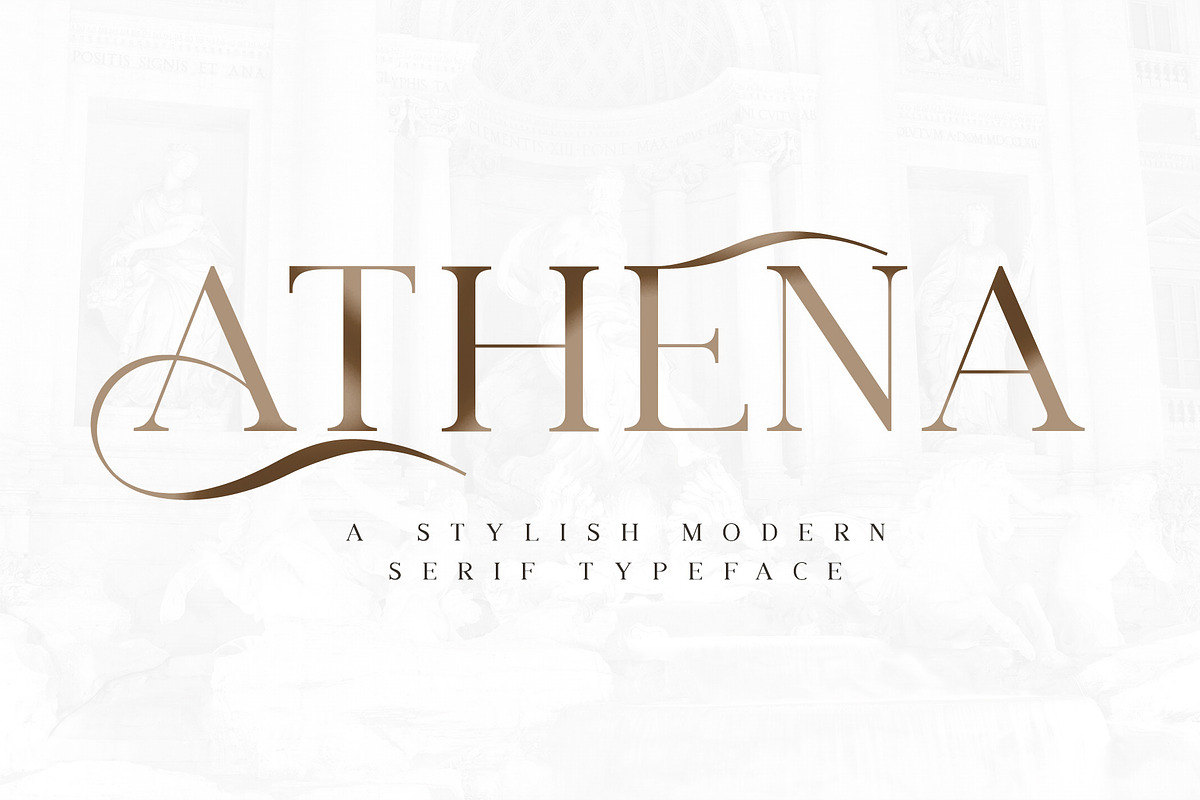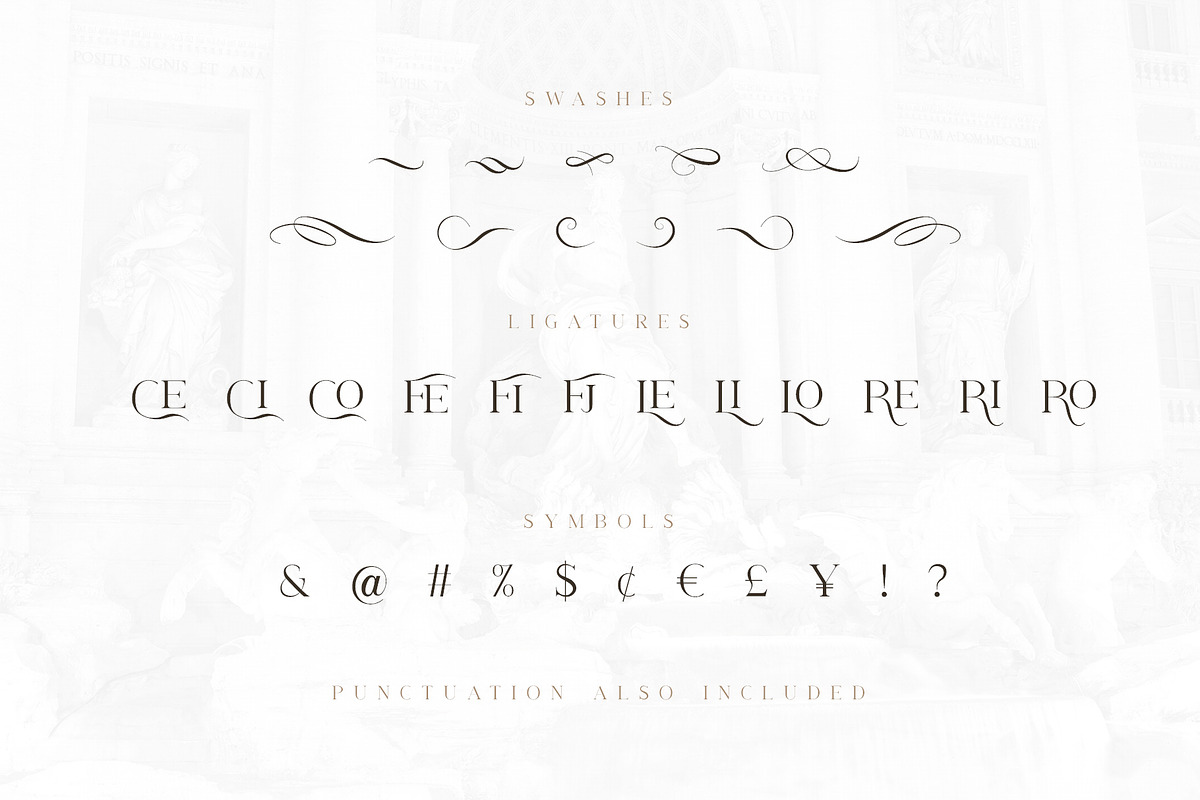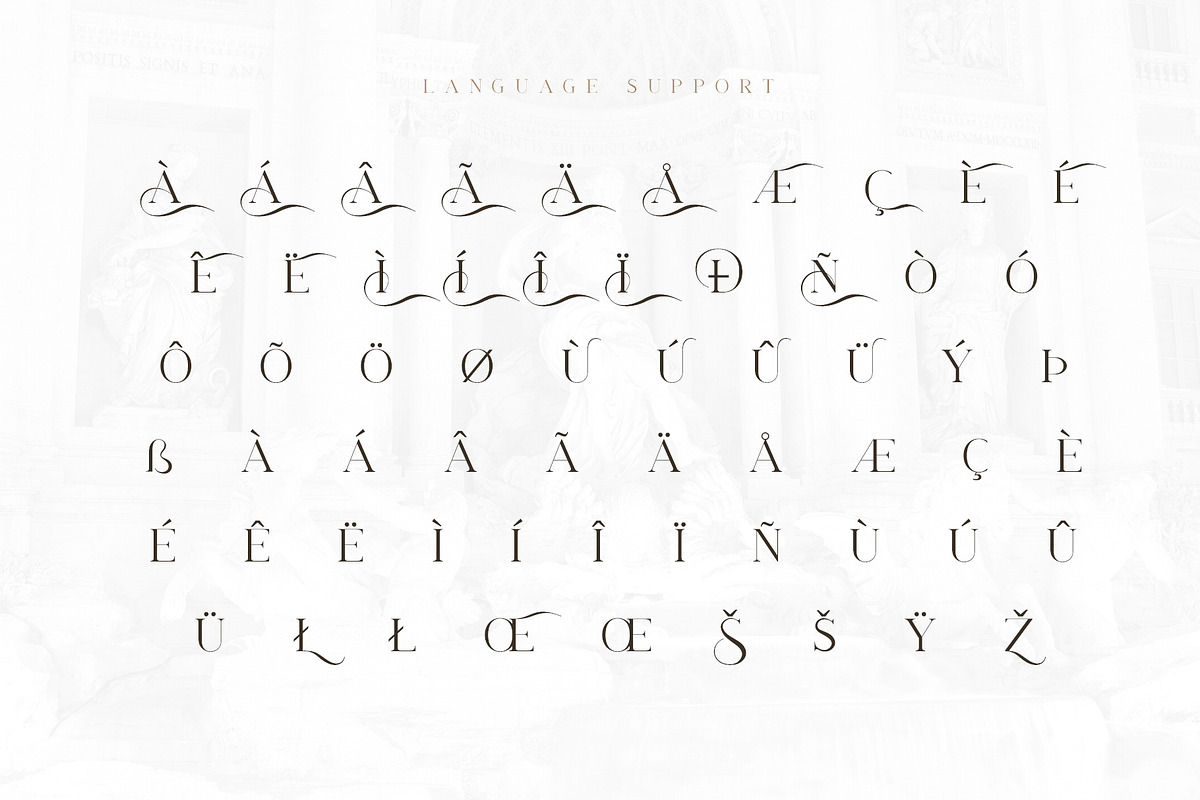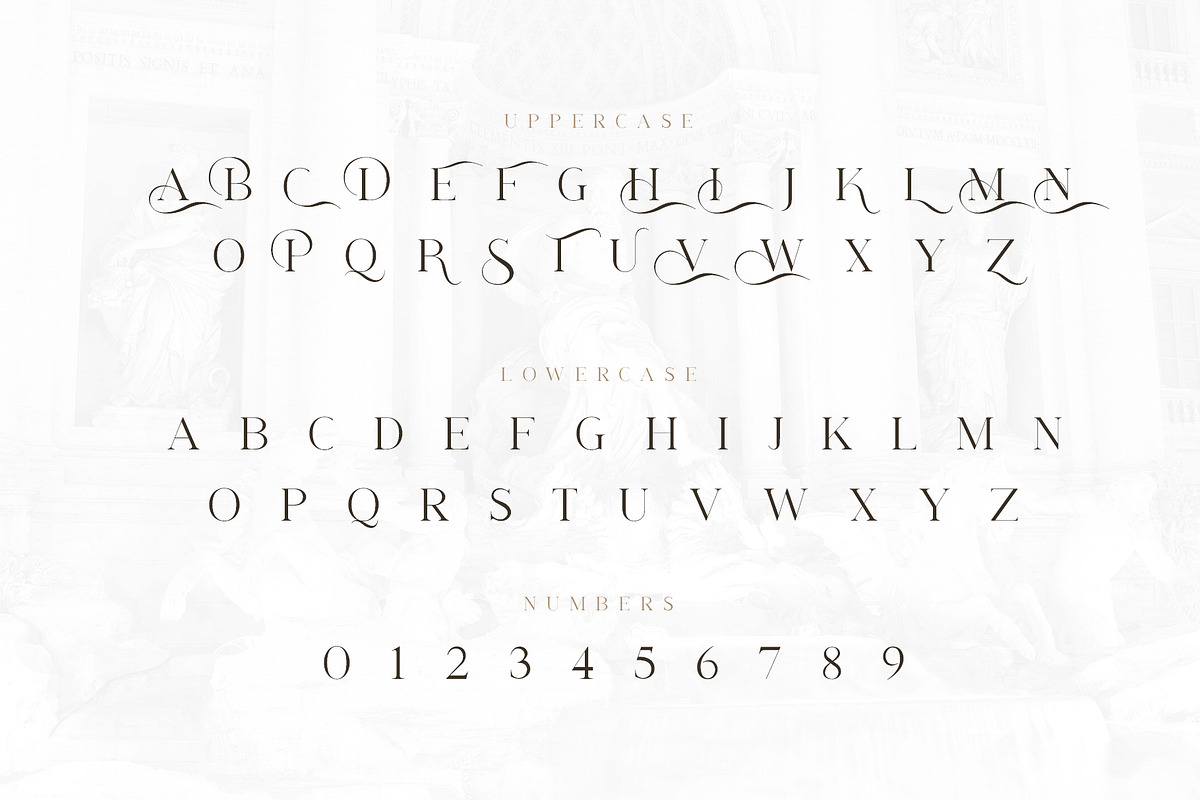
Athena - Stylish Modern Serif Font
Athena is a new stylish serif typeface with a modern touch, combining regular and thin stroke widths together with elegant flourishes for a beautiful result. This font is perfect for headlines and display text, it also has good readability at smaller sizes.
This all caps font features optional swirls and flourishes which are added by using either the traditional uppercase or lowercase versions of the letter. Flourishes can be added at the beginning, in the middle or at the end of any word.
All uppercase letters
20 uppercase variations with flourishes
Most common symbols and punctuation
60 European character and accents
11 Decorative swashes/flourishes
How to use Swashes/Flourishes:
The decorative swashes are assigned to the following symbols: ¤ • ° − ± ‰ § ¶ ‚ ⁄ ‛